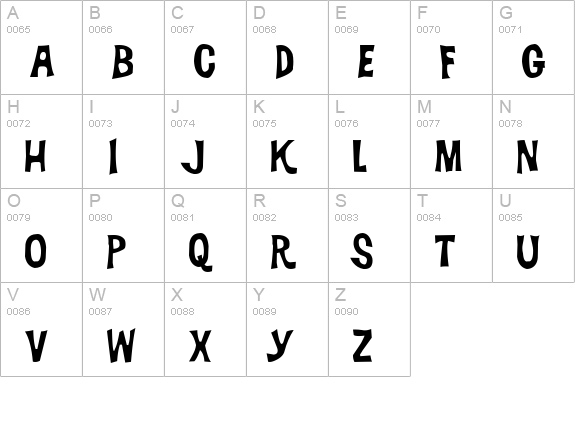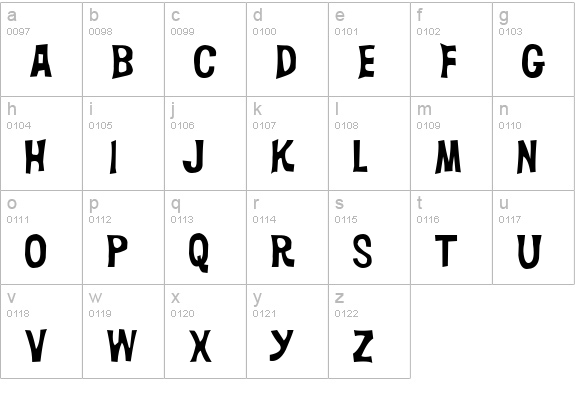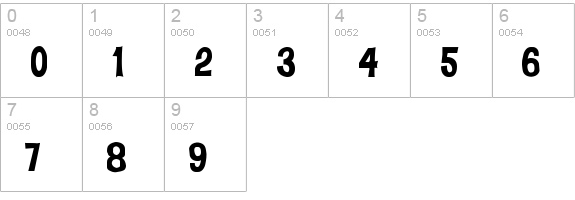
DickVanDyke Font Details
DickVanDyke font is a whimsical and charming typeface that exudes a sense of playfulness and creativity. With its quirky letterforms and unique character design, this font is perfect for adding a touch of fun to your projects. Whether you're working on a children's book, a greeting card, or a poster, DickVanDyke font is sure to bring a smile to your audience's face. Best of all, DickVanDyke font is completely free to download at FontsMarket.com. Simply visit the website and add this delightful font to your collection with just a few clicks. Don't miss out on the opportunity to enhance your designs with this charming and eye-catching typeface. Download DickVanDyke font today and let your creativity shine!